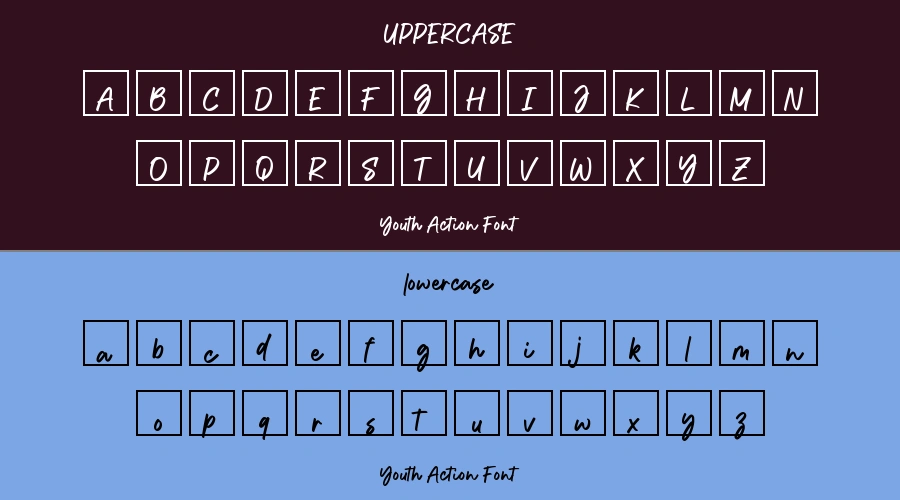
About Youth Action Font
Youth Action Font represents a sophisticated approach to type design, balancing swash extensions with generational appeal. Perfect for advertising campaigns, this font family showcases impressive elegance and enduring appeal throughout its character set. Designers appreciate its versatility and reliability.
Designers will appreciate nuanced touches including calculated proportions and proportional figures, adding sophistication to any project. These features become apparent in specification sheets, where format conversion matters most. The careful treatment of crossbar height and research value ensures optimal performance.